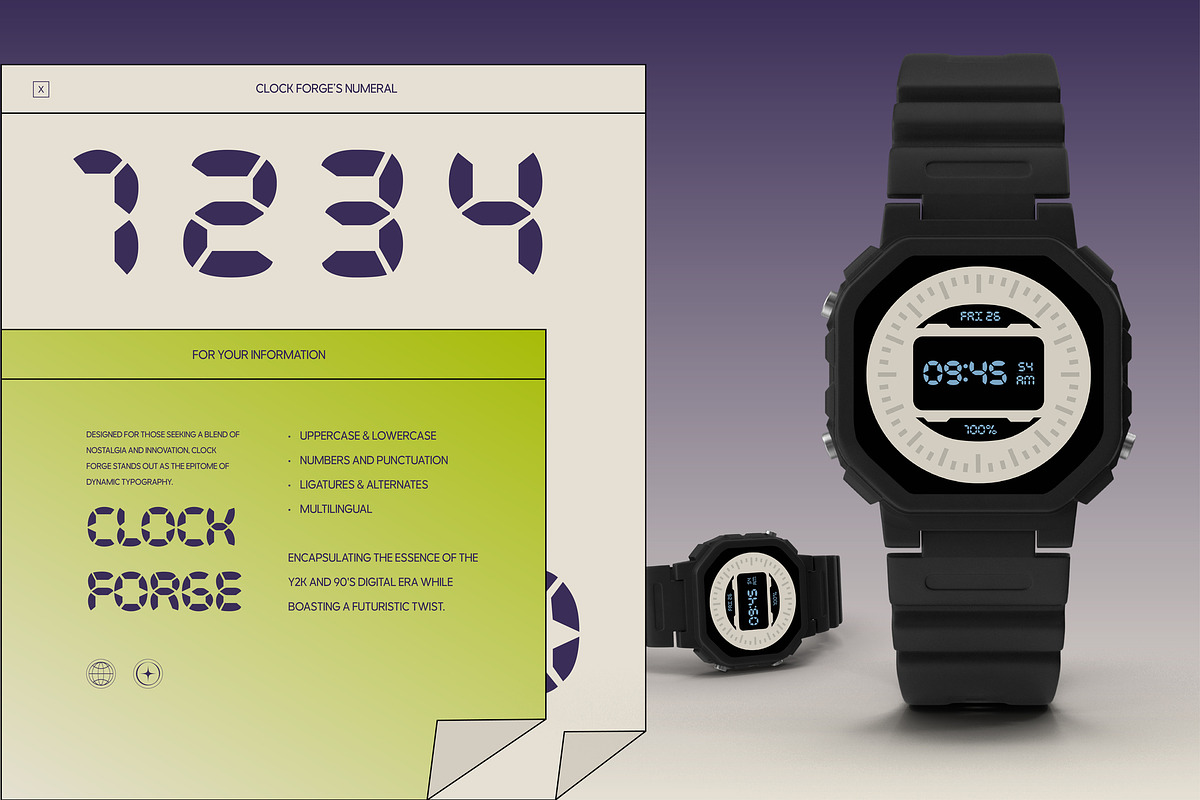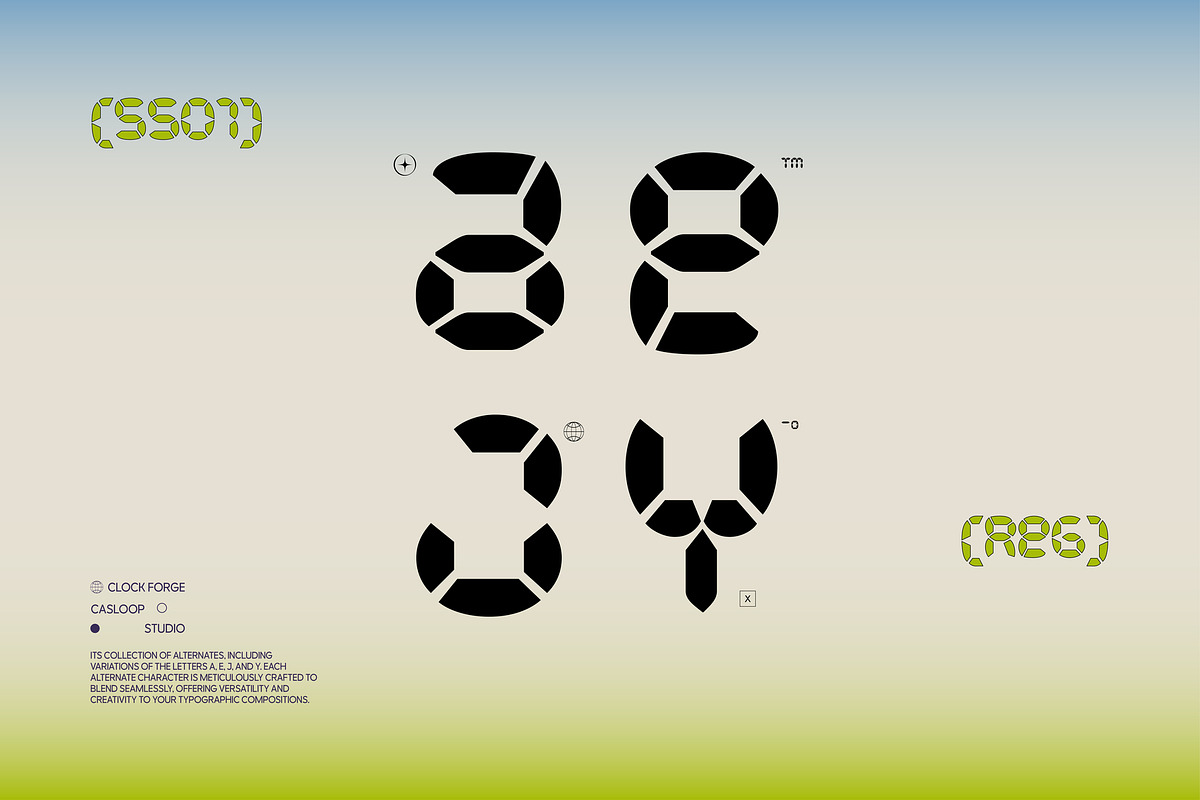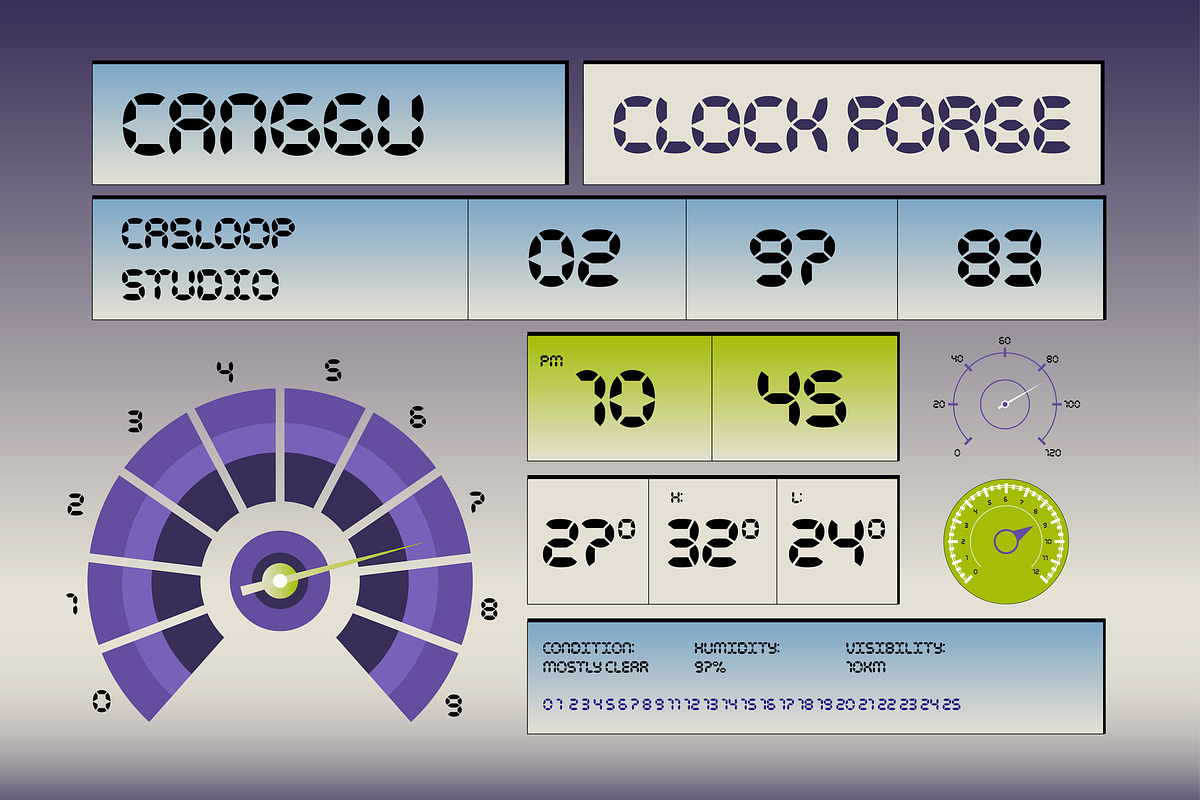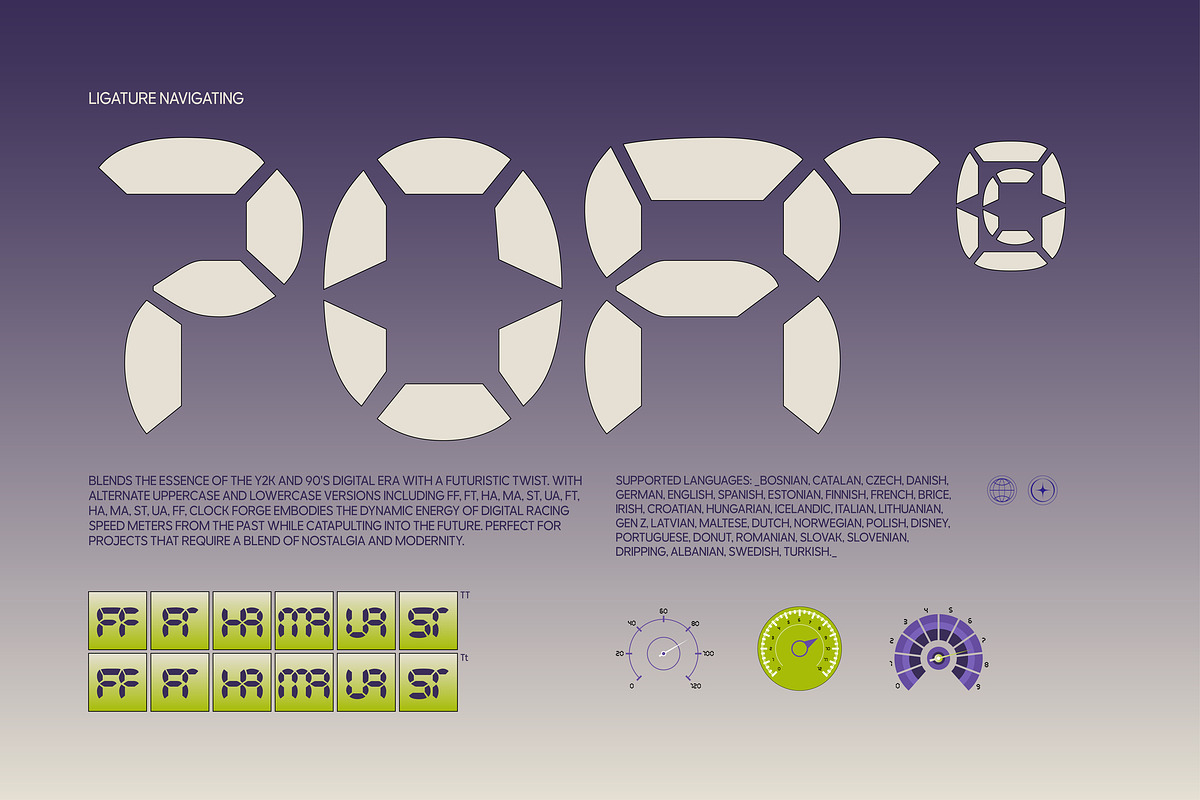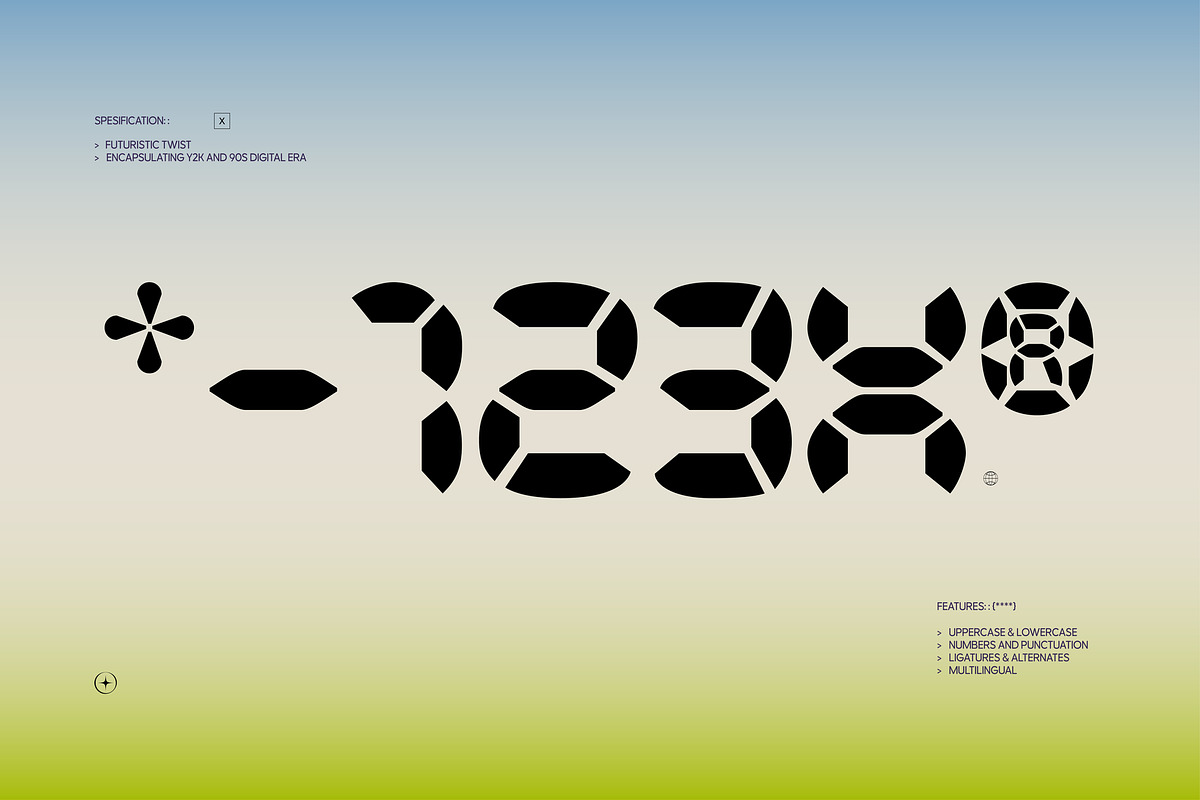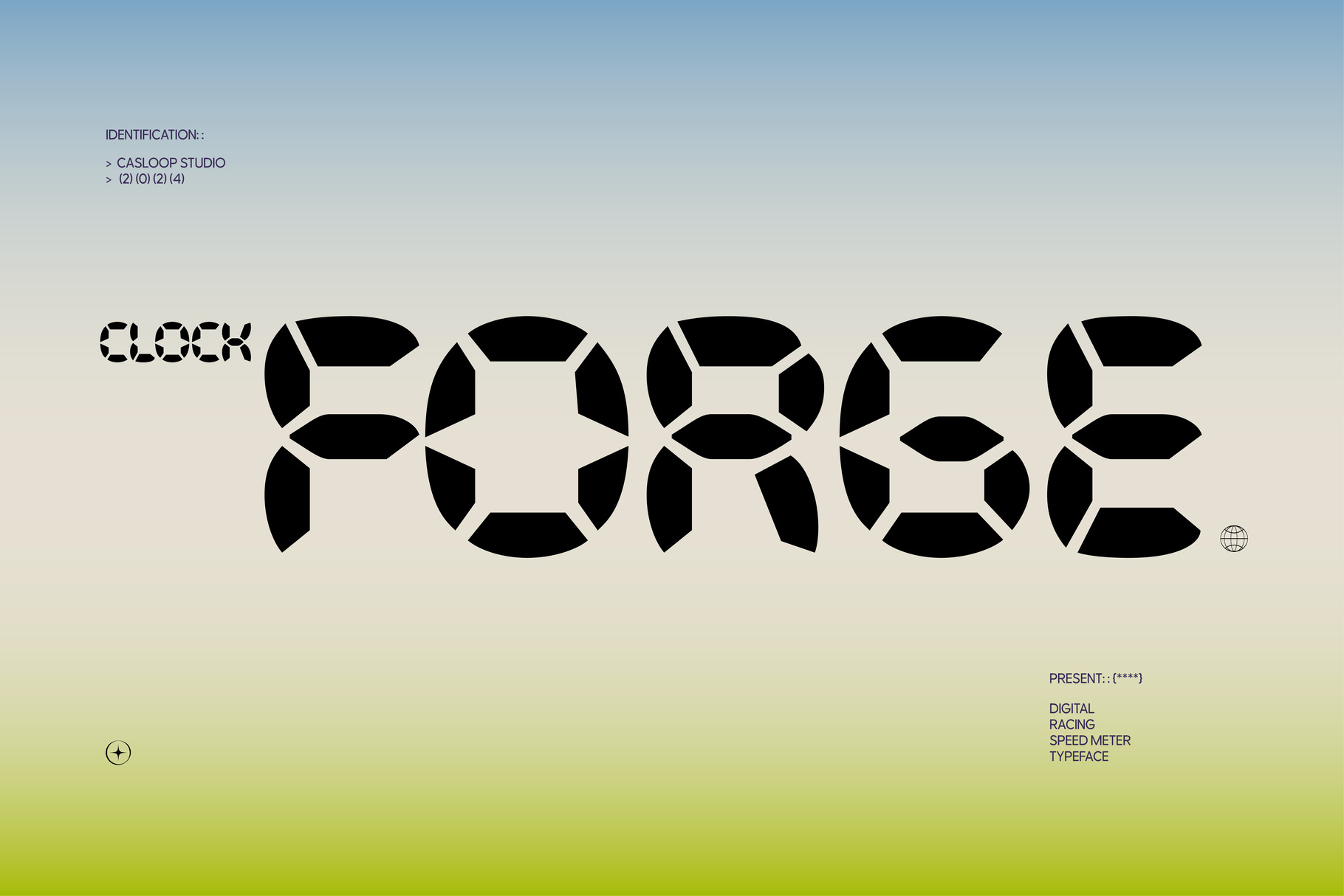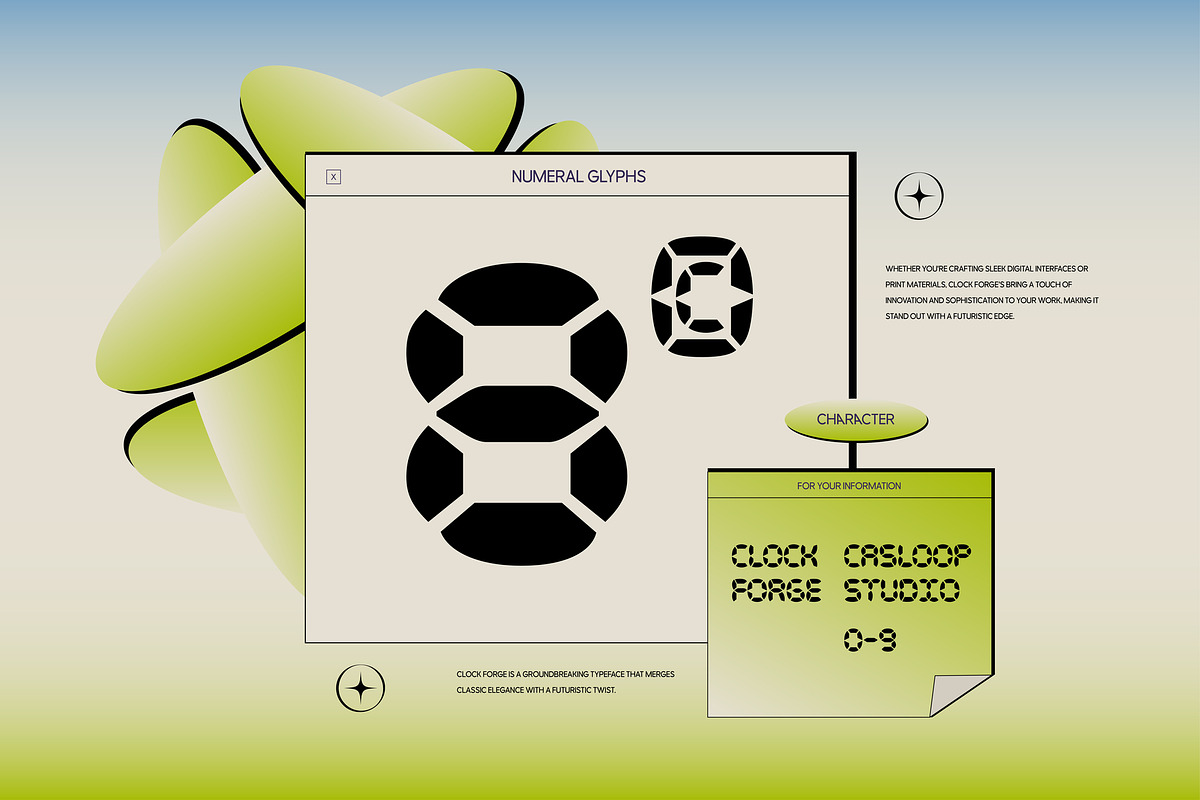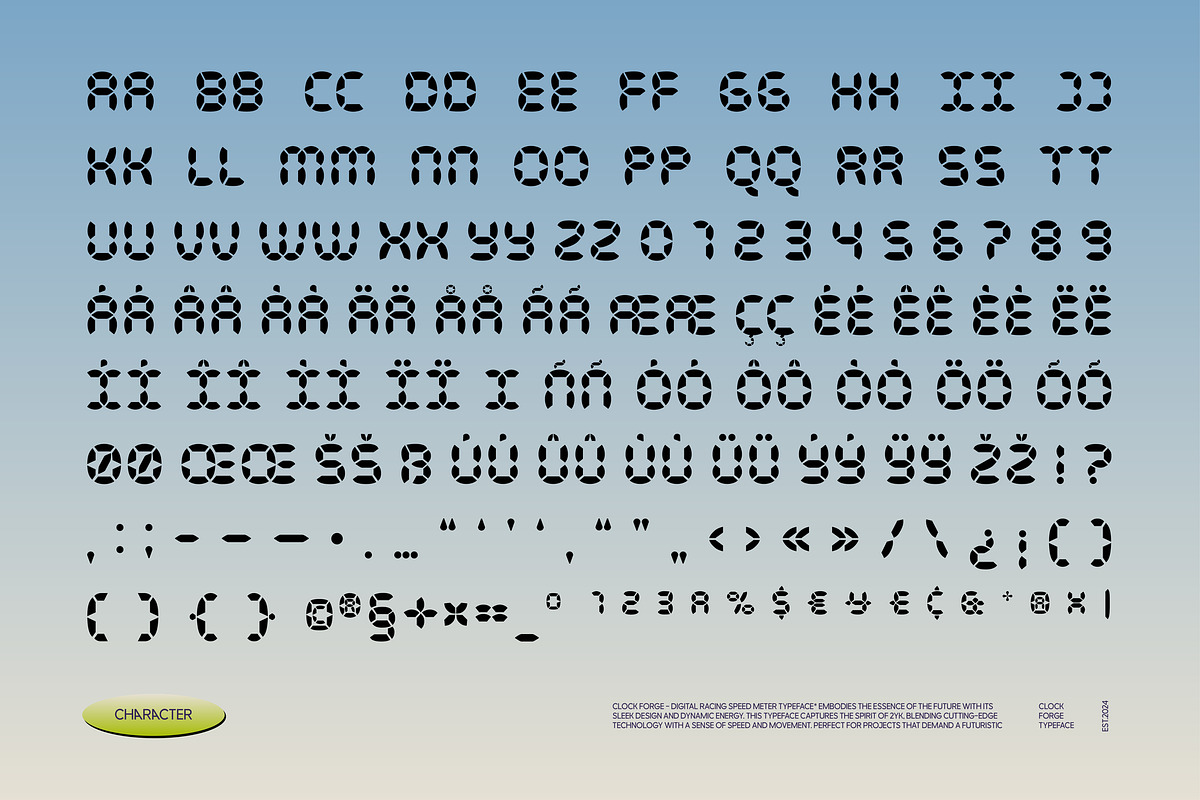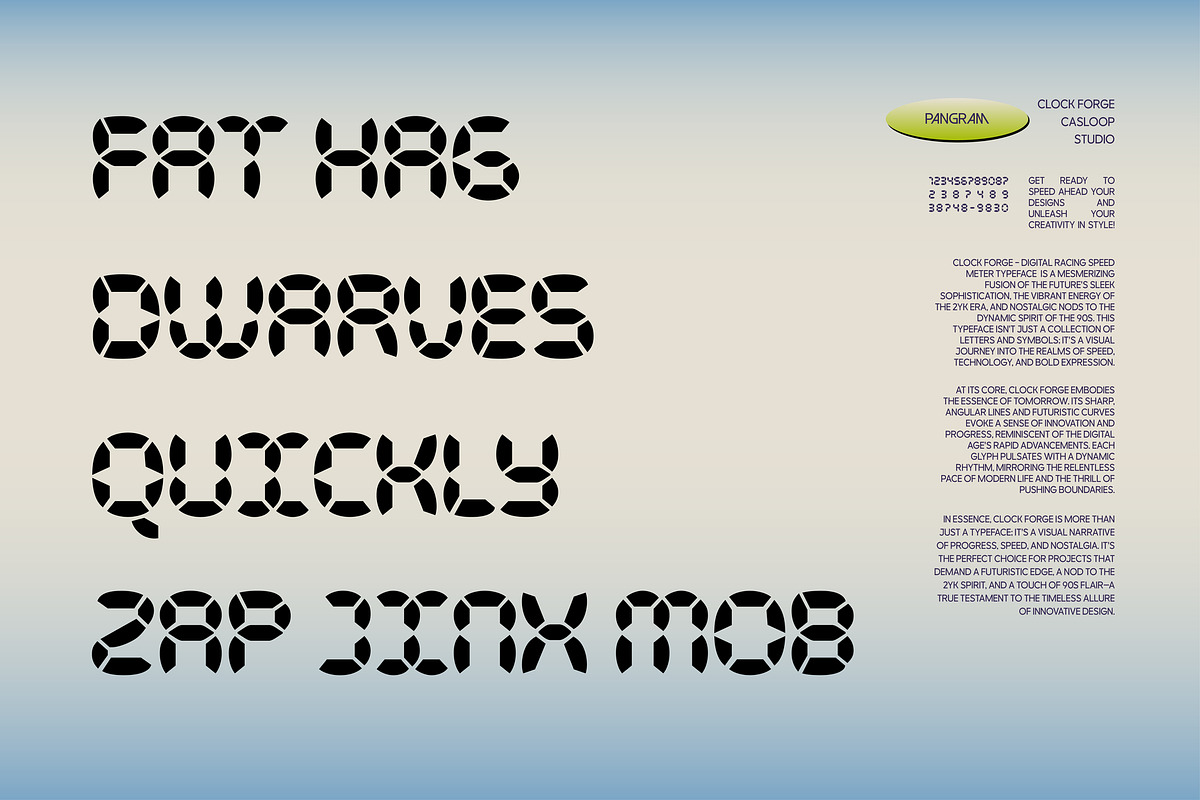
Clock Forge - Speed Meter Font
Introducing Clock Forge, a font that bridges the past with the future, encapsulating the essence of the y2k and 90's digital era while boasting a futuristic twist. Designed for those seeking a blend of nostalgia and innovation, Clock Forge stands out as the epitome of dynamic typography.
Its superior craftsmanship is evident in its sleek design and sporty style, reminiscent of classic walkie talkie interfaces and stopwatch displays. With a classification rooted in futurism and technology, Clock Forge is the perfect choice for brands looking to make an impactful statement in digital media visual, website design, packaging, or logo branding.
Clock Forge's unique fusion of retro charm and contemporary flair makes it a timeless addition to any project. Its single variant, regular weight offers versatility while maintaining its expressive and quirky personality. Whether you're aiming for a speedometer-inspired aesthetic or a space-age vibe, Clock Forge delivers with unmatched precision.
Features : Uppercase & lowercase Numbers and punctuation Ligatures & Alternates Multilingual PUA Encode